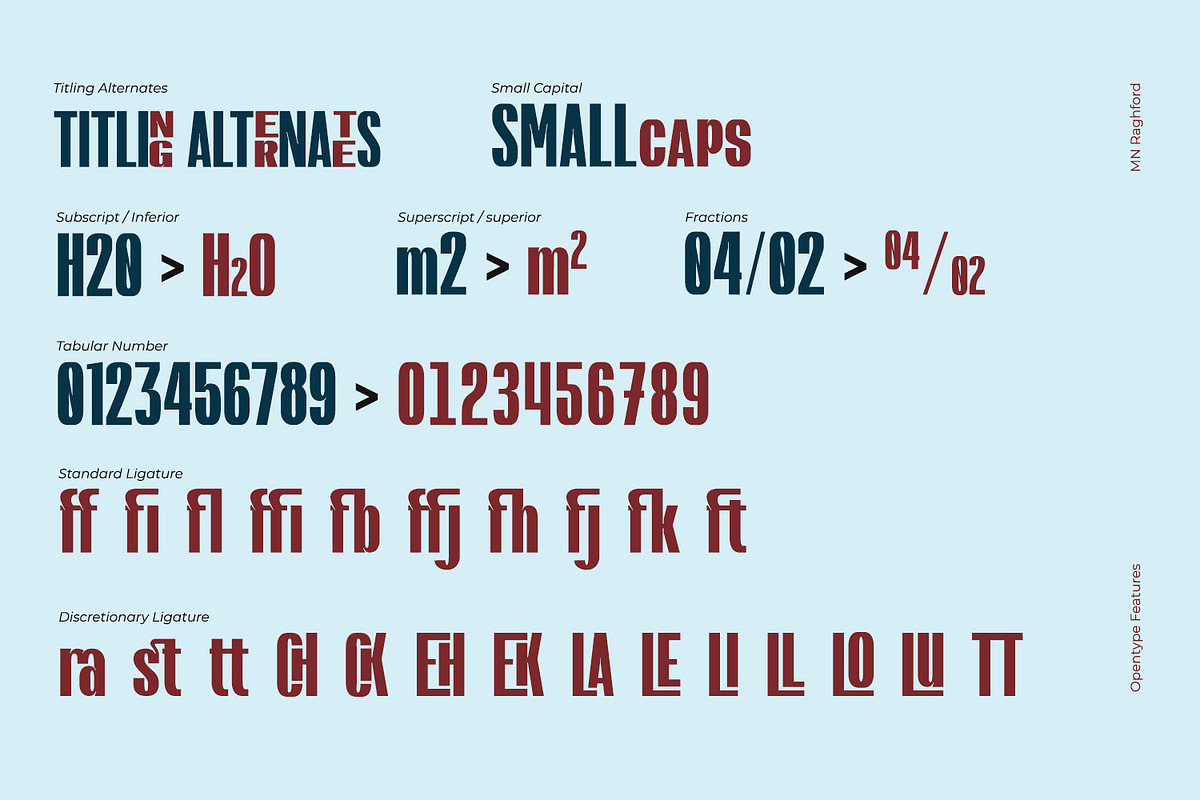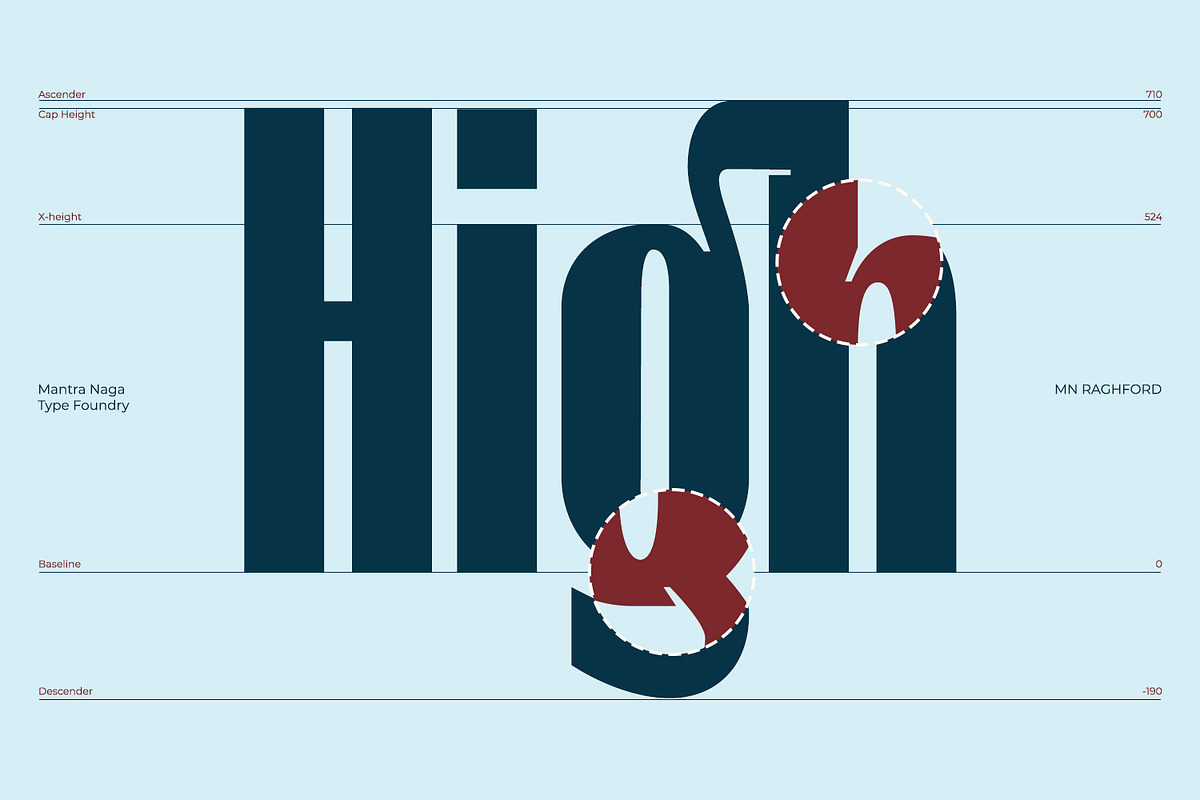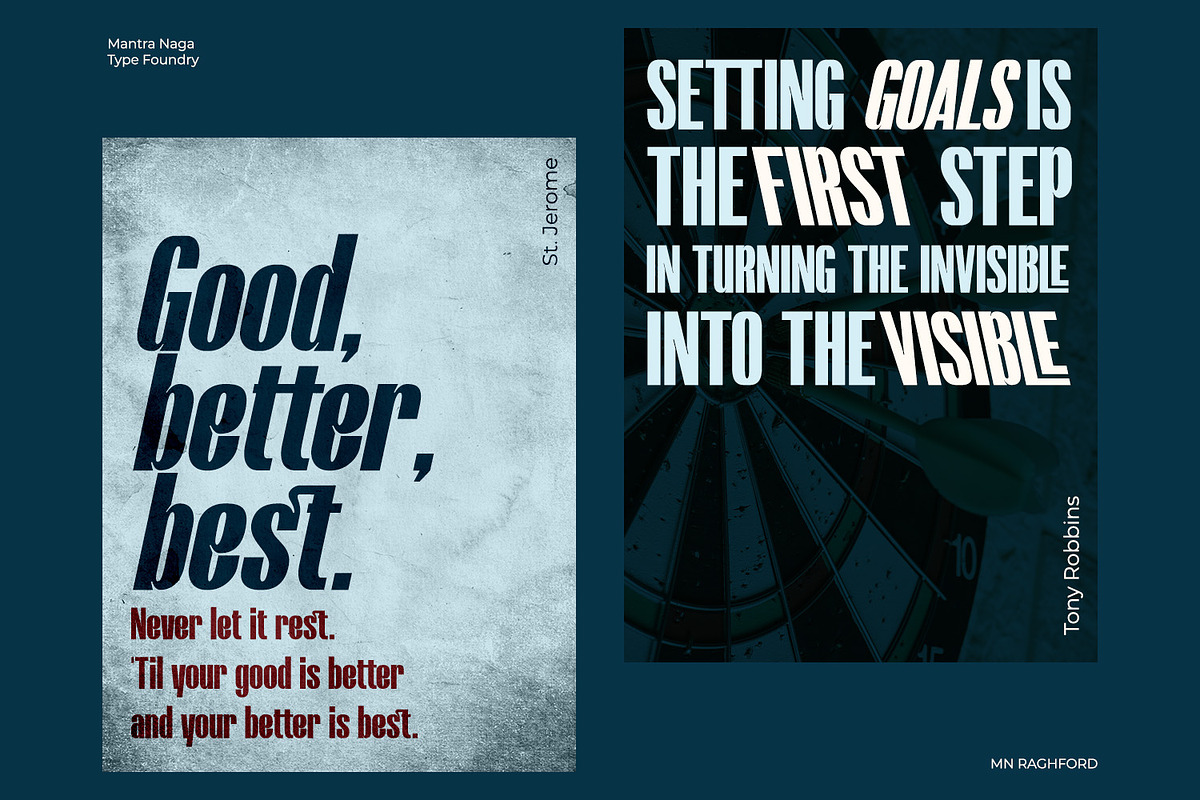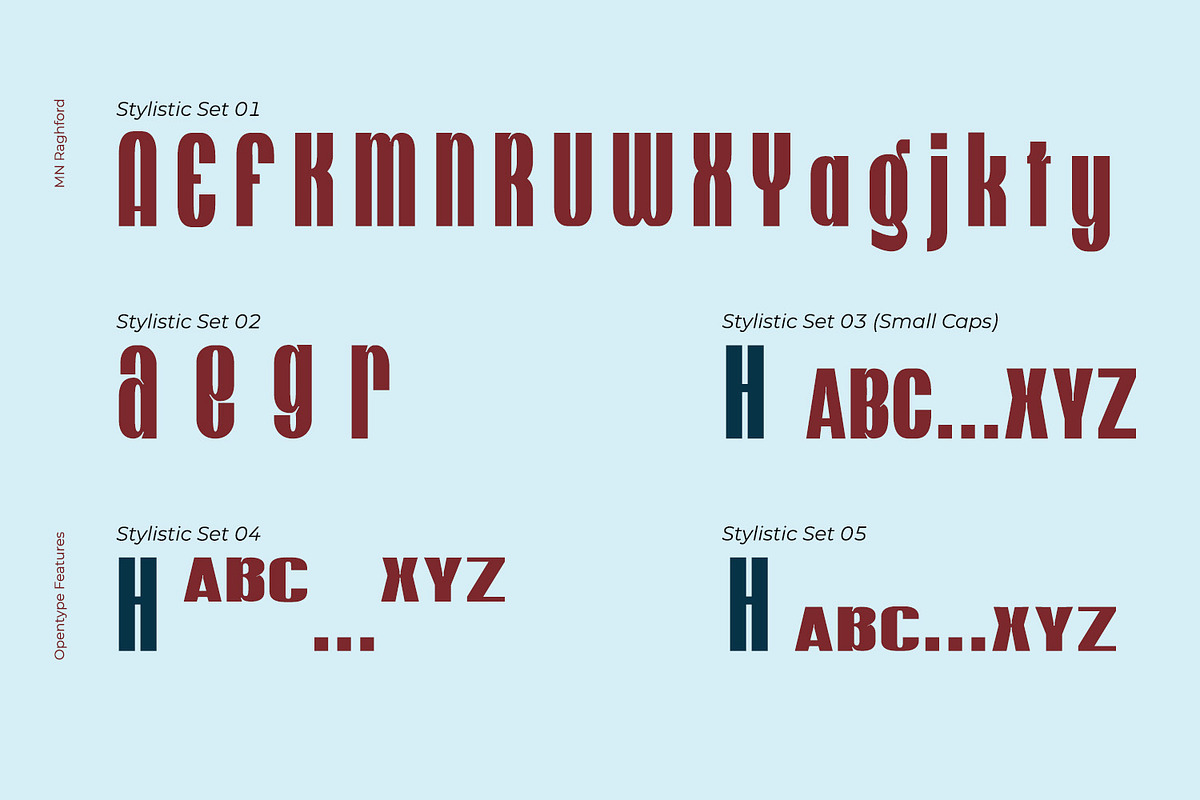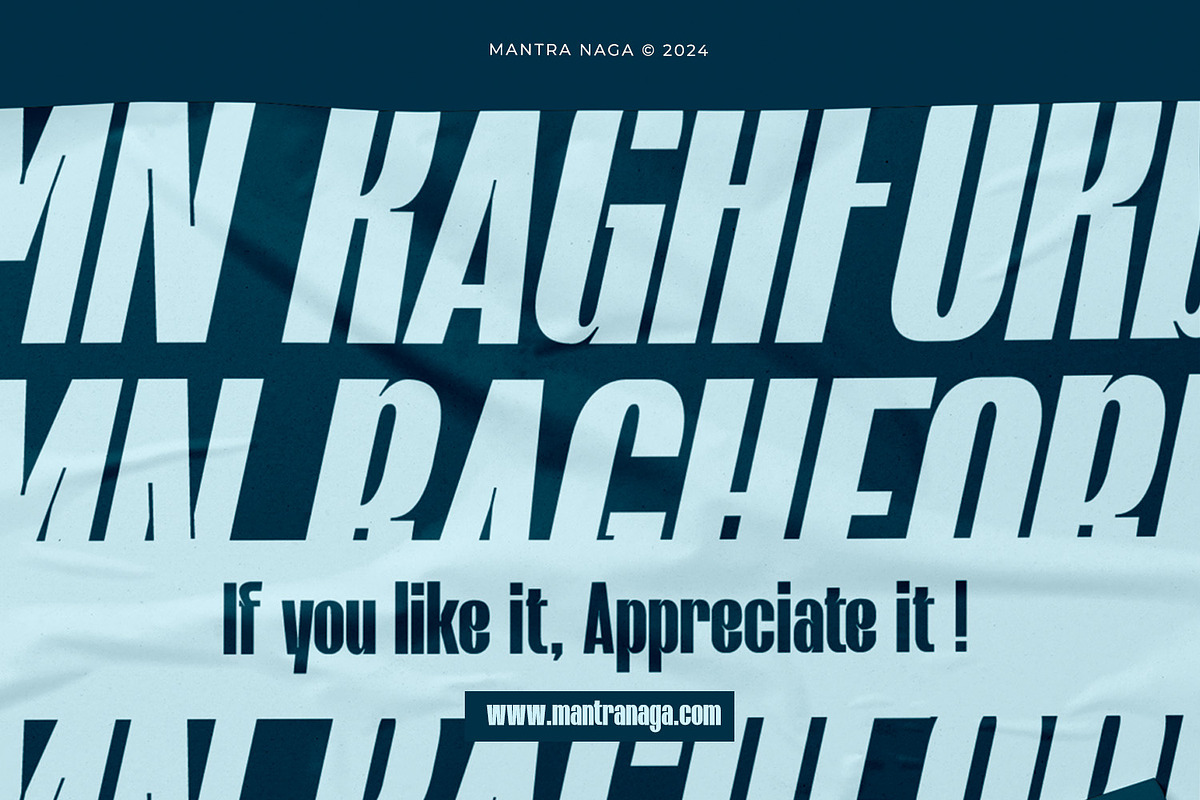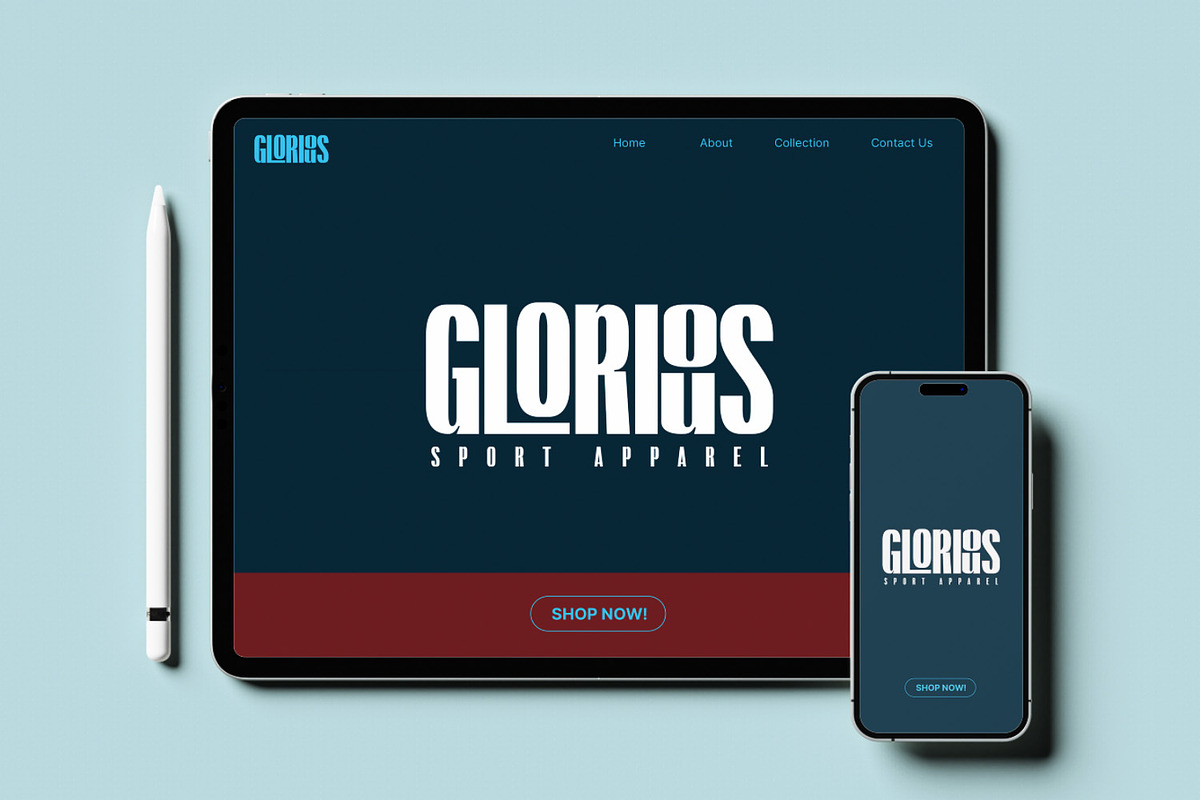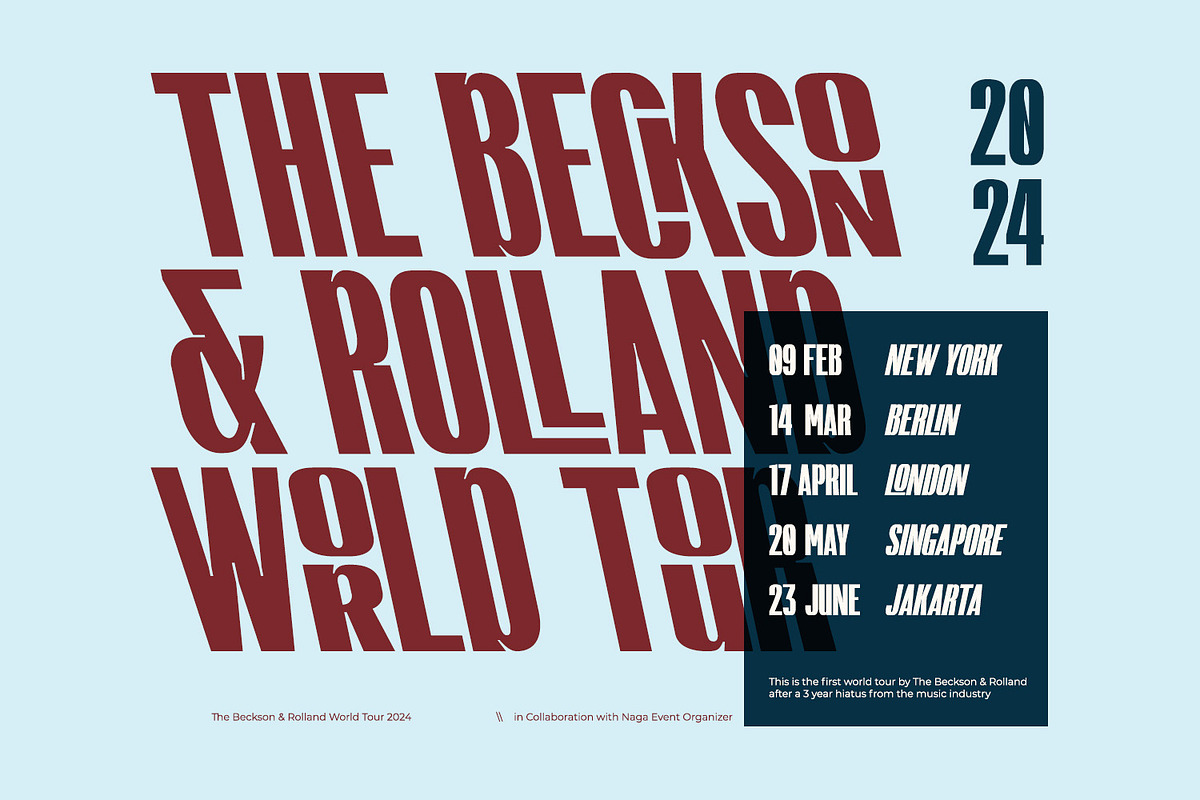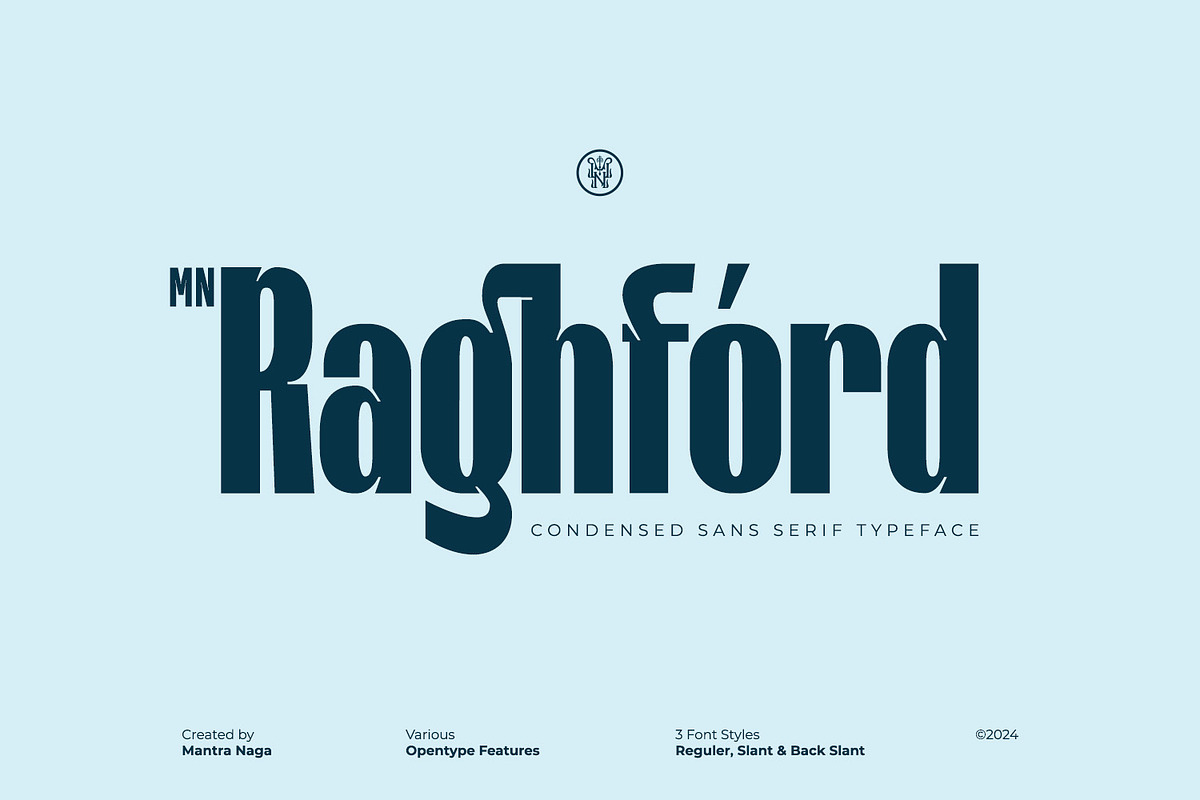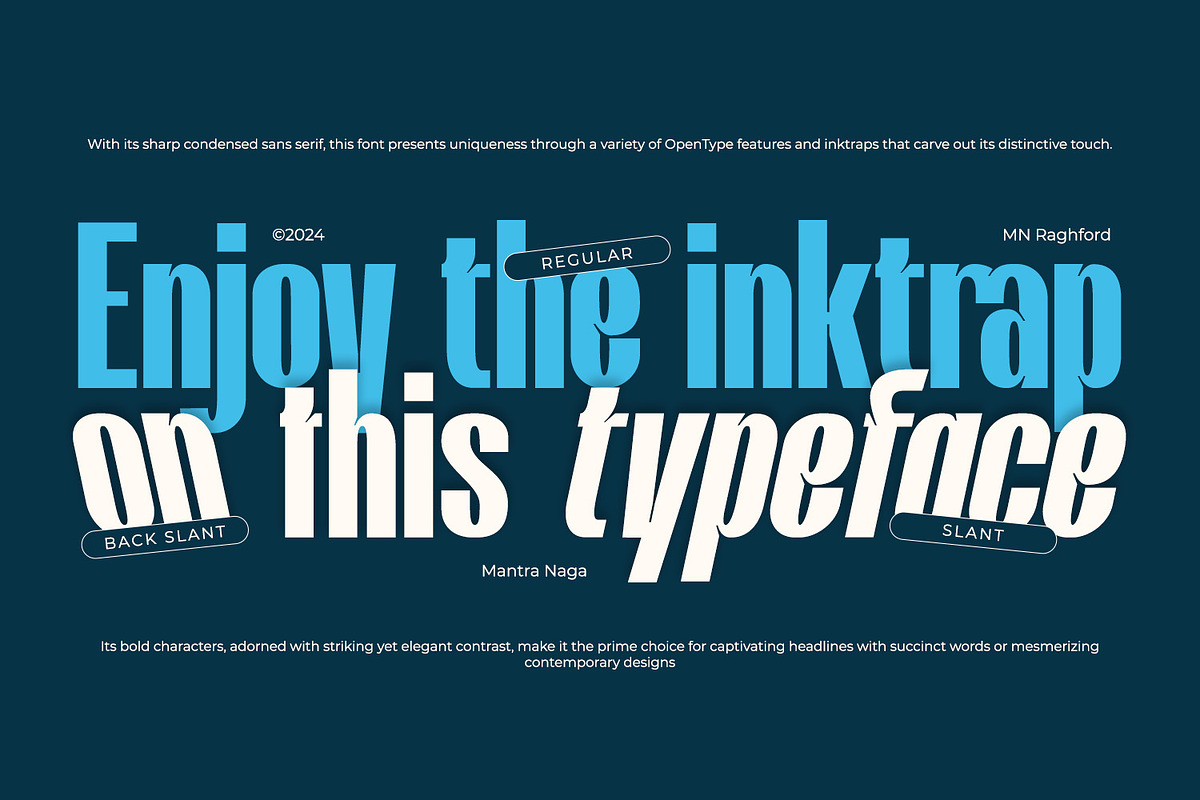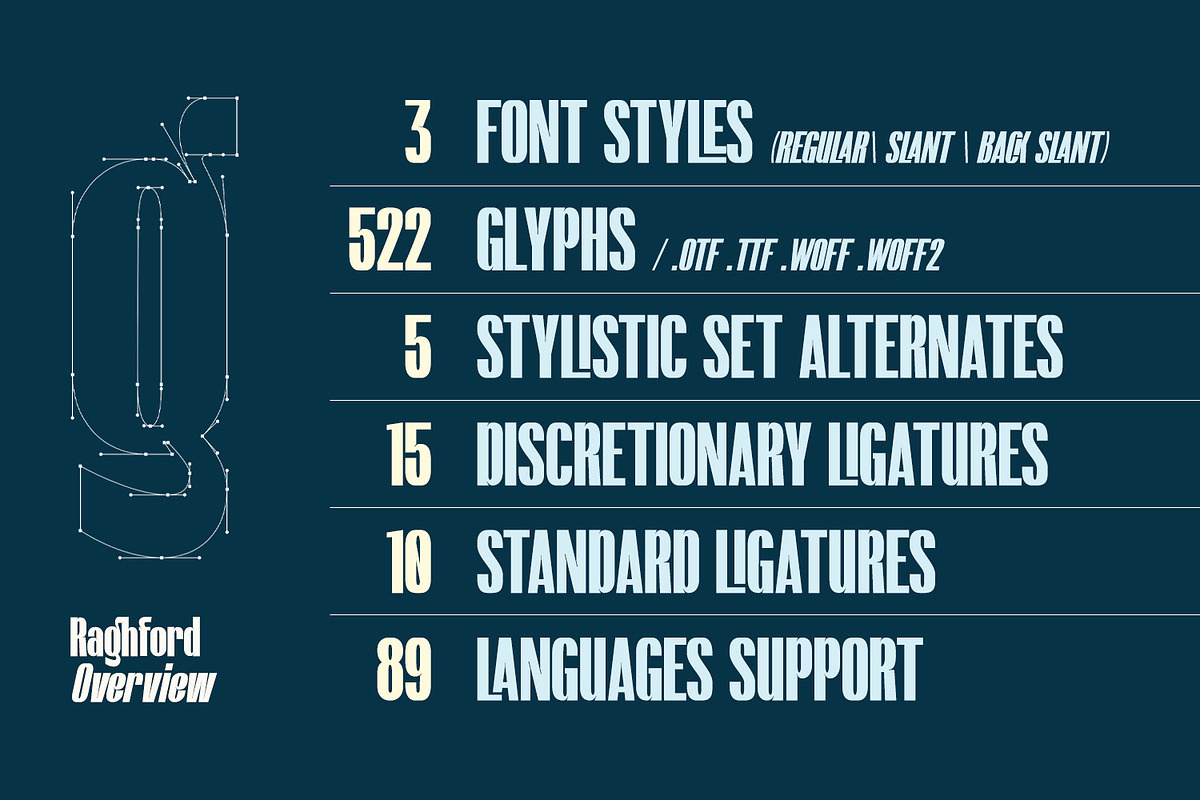
MN Raghford - Condensed Sans Serif
MN Raghford is a condensed sans serif font that exudes uniqueness with its inktrap style in certain parts of the letters. Designed with a variety of OpenType features that enrich aesthetics, this font offers support for 89 international languages. With bold characters and high contrast, MN Raghford maintains its elegance. It is perfect for short headline usage or contemporary design styles that require a classy touch. With striking inktrap details, this font provides a distinctive and appealing visual aspect for various design projects.